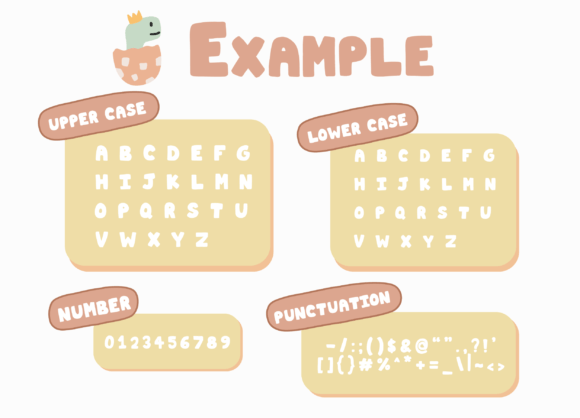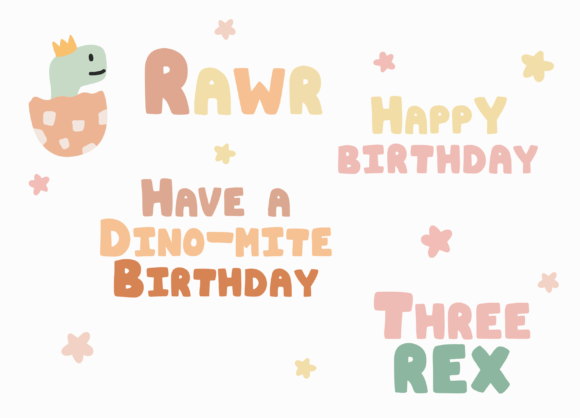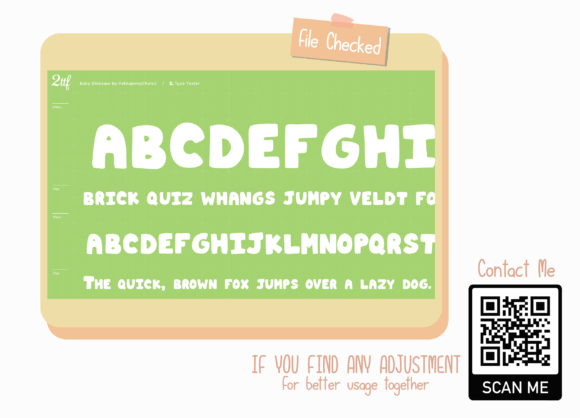
The Roar of Creativity: Unleashing the Fun of Baby Dinosaur Font
Have you ever sat in front of your computer, staring blankly at a blank page, waiting for inspiration to strike? That’s exactly what happened to me the day I stumbled upon the Baby Dinosaur Font. I was working on a project for a children’s book, and I needed a font that would capture the playful essence of the little dinosaurs. That’s when I discovered this big, bold font that roars with excitement, just like the baby dinosaurs it’s named after.
The Baby Dinosaur Font is a perfect pick for designers who want to add a splash of fun to their projects. Its big and bold design radiates youthful energy and dino-themed delight, making it a great choice for projects about kids, baby showers, or anything that celebrates the enchanting world of baby dinosaurs. As a designer, you’ll appreciate the versatility and creativity that this font offers.
Baby Dinosaur Font Key Features
- Font Family: A custom-designed, playful font that resembles a baby dinosaur’s face.
- Character Set: Includes uppercase and lowercase letters, numbers, punctuation marks, and special characters, making it suitable for a wide range of applications.
- Unique Characteristics: The font features a bold, rounded design with a mix of smooth and textured elements, giving it a unique and eye-catching appearance.
Designer Review: Baby Dinosaur Font
The Baby Dinosaur Font caught my eye with its playful, whimsical feel. ✨ I love how it captures the essence of childhood wonder, perfect for designs aimed at younger audiences. The font’s rounded edges and soft curves evoke a sense of cuteness, making it an excellent choice for children’s books, nursery decor, or kid-friendly branding.
One of the standout features of the Baby Dinosaur Font is its versatility. ✨ It works well in both uppercase and lowercase letters, allowing for a range of creative applications. The font’s open shape also makes it easy to read, even at smaller sizes.
However, I do have some concerns. ⚠️ The font’s limitations become apparent when used in bold or italic styles. The bold version can appear slightly distorted, while the italic style may lose some of its signature charm. Additionally, the font’s weight may not be suitable for all design contexts, particularly those requiring a more serious or professional tone.
- Playful, whimsical feel
- Rounded edges and soft curves
- Versatile in uppercase and lowercase letters
- Easy to read at smaller sizes
- Distorted appearance in bold style
- Loss of charm in italic style
- Weight may not be suitable for all design contexts
The Baby Dinosaur Font is perfect for:
– Children’s party invitations and decorations
– Dinosaur-themed projects and presentations
– Fun and playful social media graphics
– Educational materials and worksheets